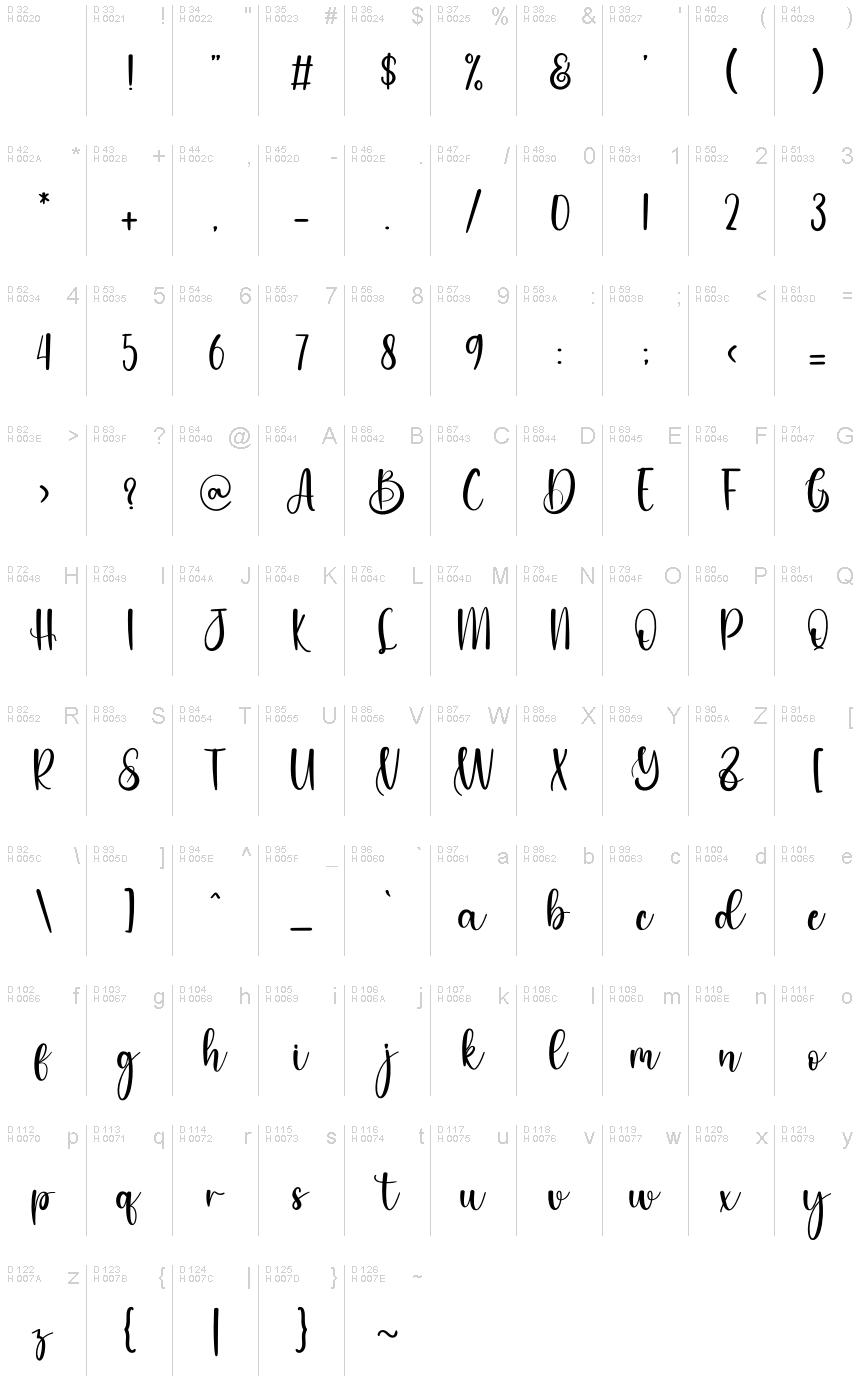
Bady
Bady, a charming creation by PiPi Creative, encapsulates the personal touch and whimsical flair of handwritten script. Its fluid strokes and varying line thickness evoke the authenticity of ink on paper, bringing an organic warmth to digital canvases.
The elegant yet informal style of Bady makes it a delightful choice for invitations, branding, and editorial design where a touch of human presence is desired. This font's aesthetic appeal lies in its ability to convey casual elegance, making it versatile for both playful and sophisticated contexts.